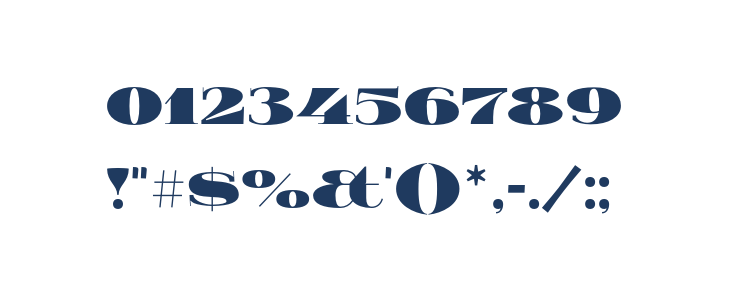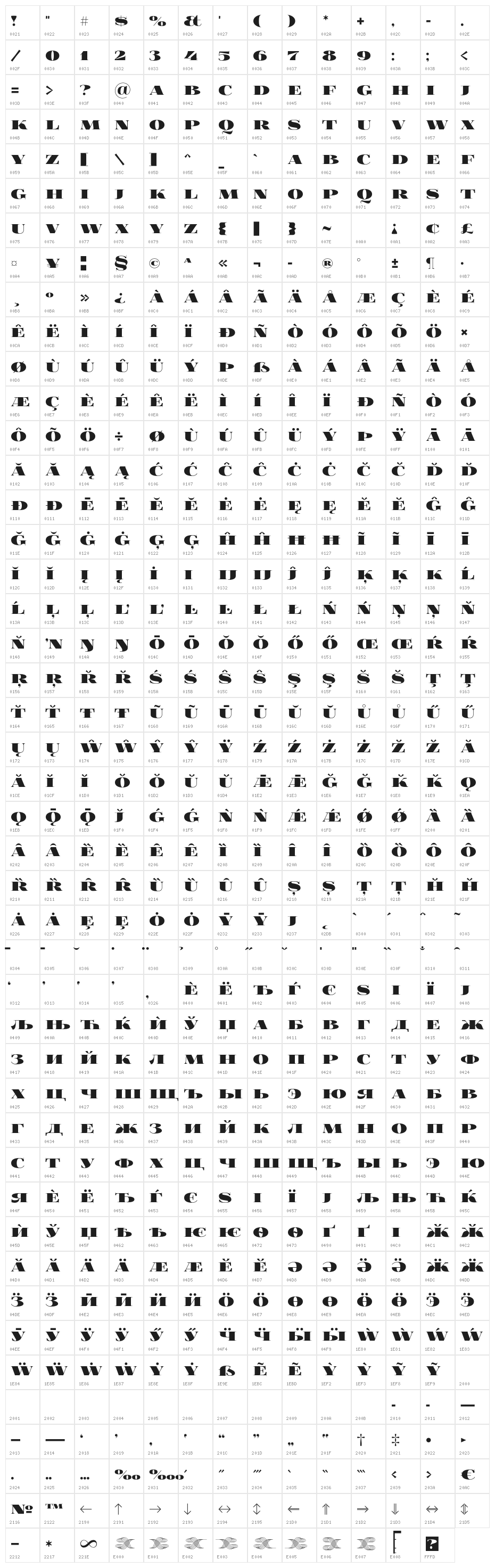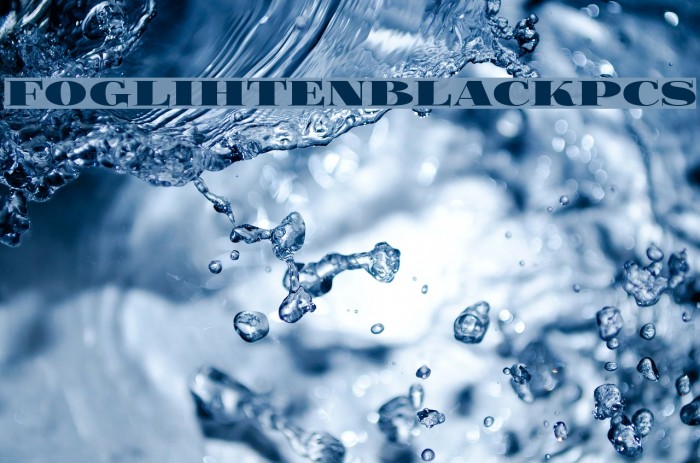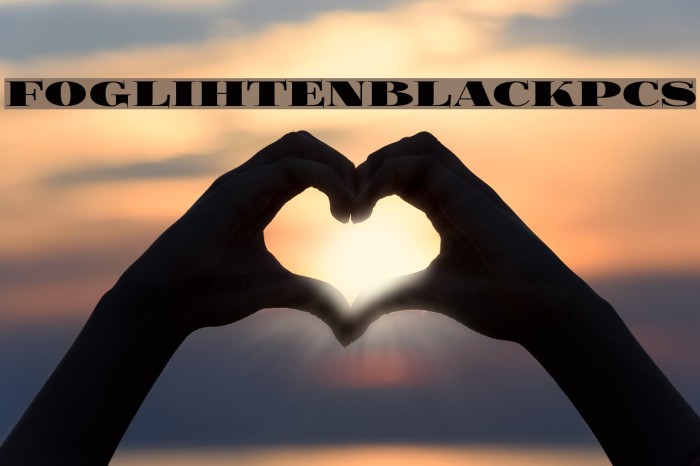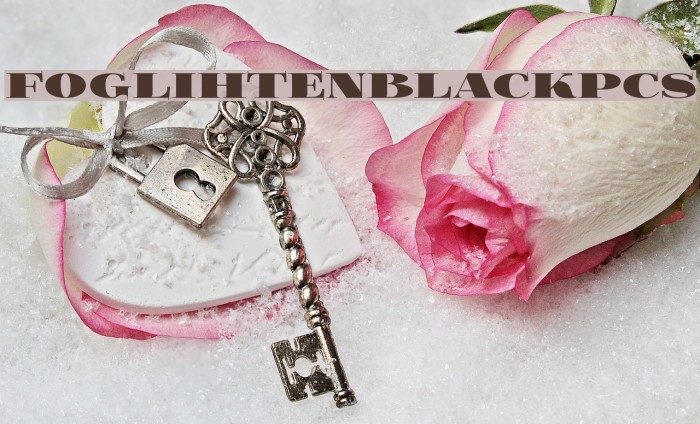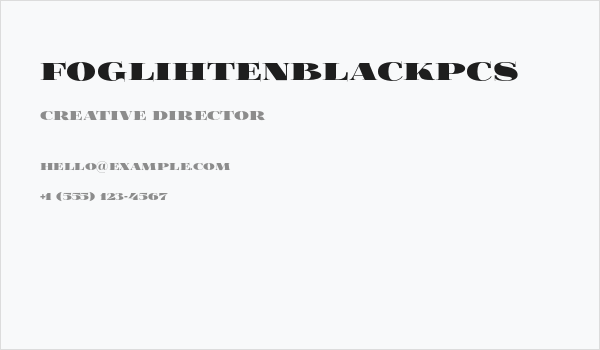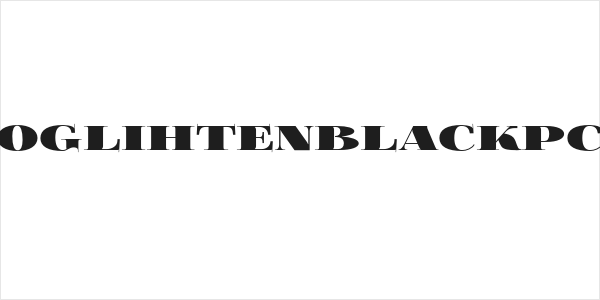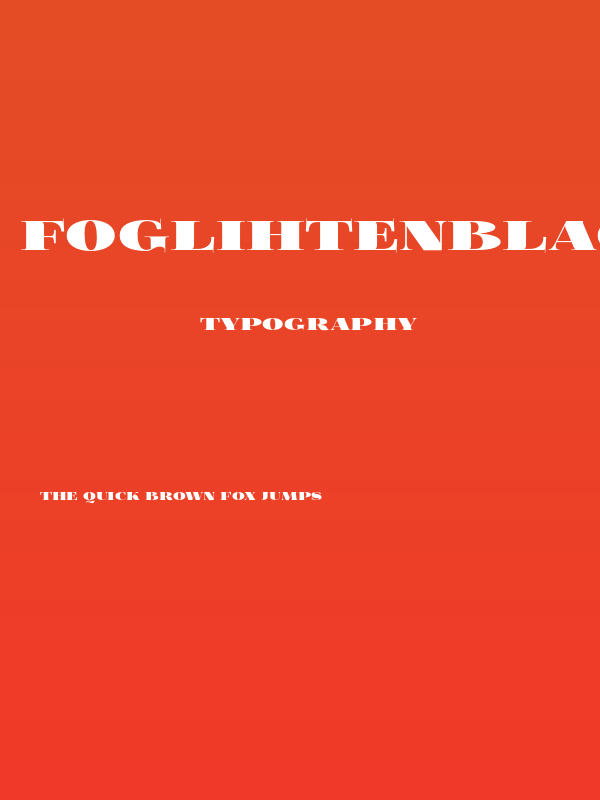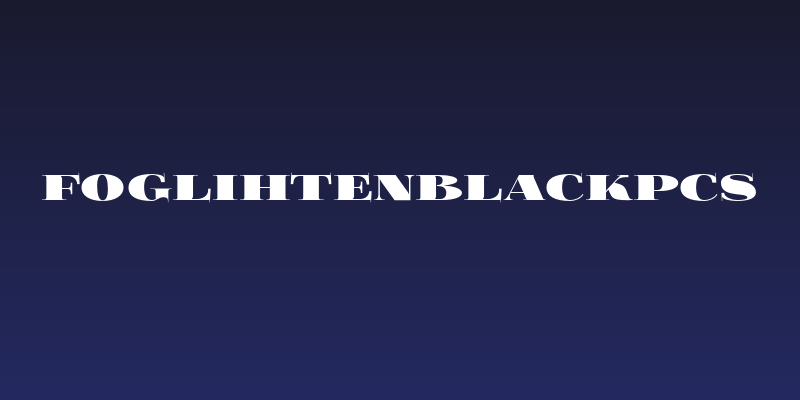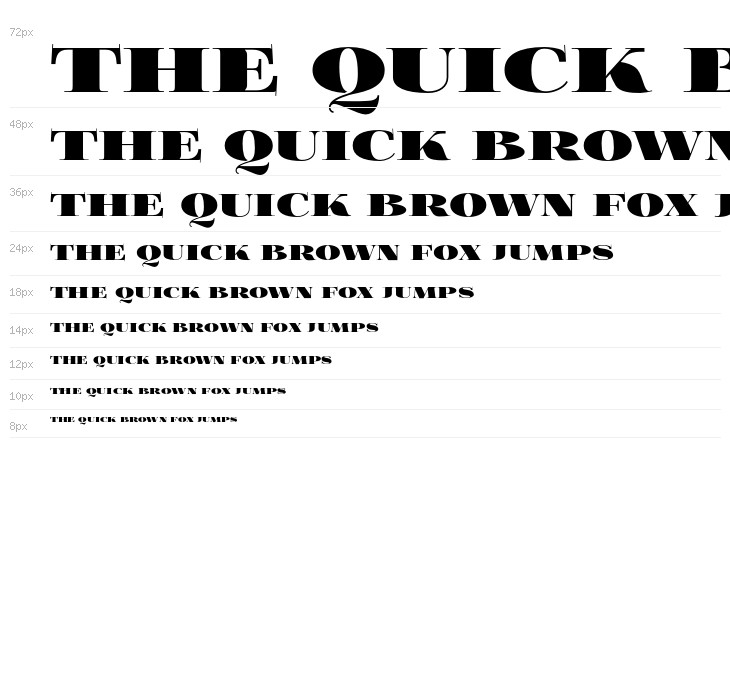
FoglihtenBlackPcs Font
FoglihtenBlackPcs Description
This font features a bold and dramatic style with high contrast between thick and thin strokes, giving it a striking and impactful appearance. The uppercase letters are particularly wide and commanding, while the lowercase letters maintain a consistent boldness. The numerals are equally bold, ensuring they stand out prominently. Special characters are designed with the same boldness, making them suitable for attention-grabbing designs. The overall aesthetic is modern and assertive, making it ideal for projects that require a strong visual presence.